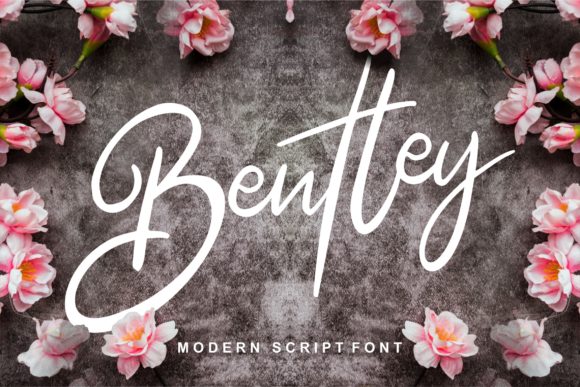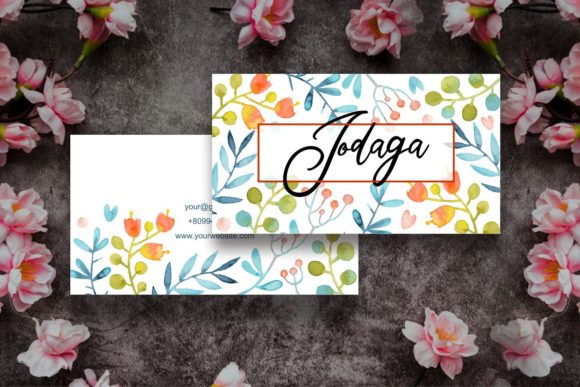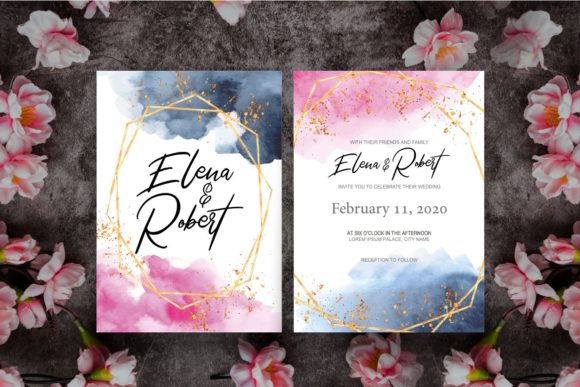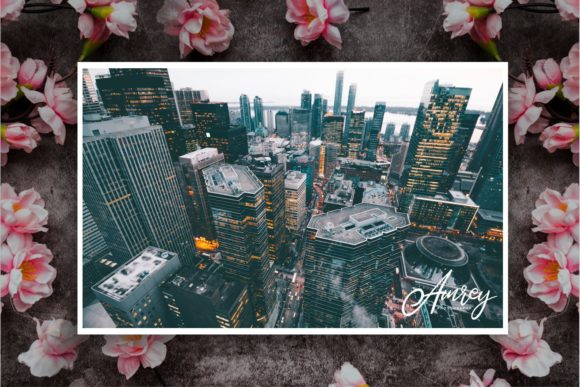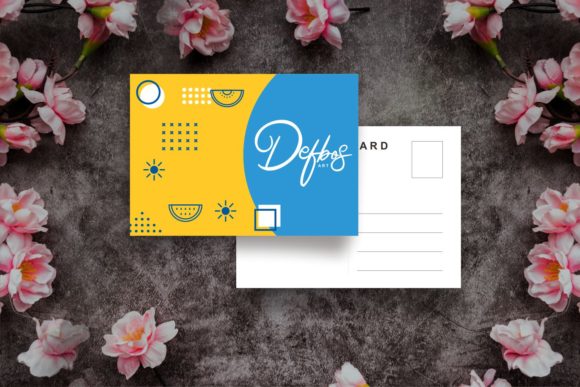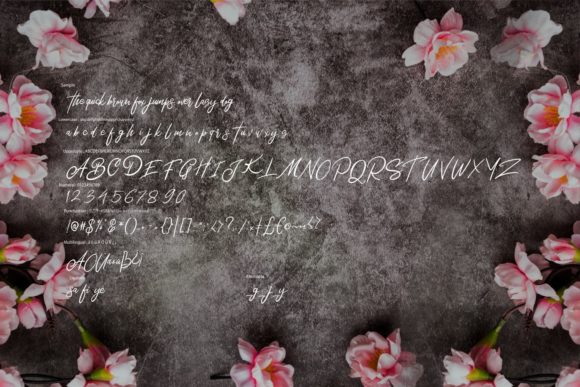
Bentley Font
About Bentley Font
Bentley is a rich and distinct script font featuring broad strokes and wide curves. It will give any design a generous feel.